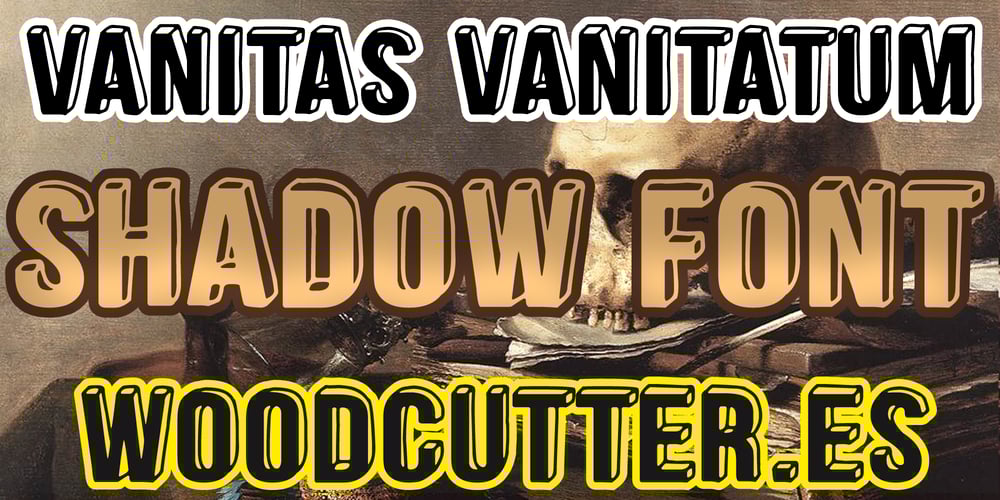
Vanitas Vanitatum
Vanitas Vanitatum font
Vanitas Vanitatum Font Family was designed by Jordi Manero and published by Woodcutter. Vanitas Vanitatum contains 1 styles and family package options. “Vanitas Vanitatum” is a three-dimensional font featuring uppercase letters and accents, with shadows inverted to the right. The irregular, hand-drawn letters bring an artisanal and unique touch to any project. This design gives it a distinctive and attractive appearance, ideal for highlighting titles and signage with an artistic and sophisticated style. “Vanitas Vanitatum” combines classic elegance with a modern, handcrafted touch, perfect for those seeking a font that conveys creativity and originality.